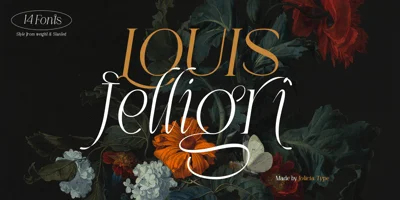
LOUIS felligri Font
LOUIS felligri Font is perfect for royal heritage branding, aristocratic event invitations, luxury palace hotels, prestigious monarchy museums, regal ceremony materials, noble family crests, distinguished award ceremonies, imperial cultural exhibitions, and majestic social media content. This distinguished typeface brings royal elegance and aristocratic sophistication to both digital and print design applications.
LOUIS felligri Font is exciting because it embodies the magnificent grandeur and noble heritage of French royal tradition, making it an exceptional choice for designers who want to convey aristocratic prestige with authentic royal appeal. Its stately letterforms and imperial character provide the perfect combination of royal elegance and functional distinction, ensuring your projects communicate nobility, prestige, and royal excellence that resonates with audiences seeking genuine aristocratic experiences and imperial luxury.
The LOUIS felligri Font family includes royal weight variations and aristocratic elements, featuring light, regular, and bold weights with complementary noble styles, imperial ligatures, and regal decorative flourishes. Each style maintains consistent royal aesthetics while offering flexibility for different aristocratic applications, allowing designers to create majestic visual systems that reflect noble values and royal sophistication.
Whether you're designing for luxury brands, heritage institutions, or aristocratic projects, LOUIS felligri Font delivers authentic royal appeal and imperial sophistication that connects with audiences seeking genuine nobility experiences and aristocratic excellence. This premium typeface offers designers the royal elegance and aristocratic charm needed to create designs that communicate noble heritage, imperial prestige, and royal authenticity effectively. The font's majestic character makes it perfect for royal branding, aristocratic campaigns, and imperial applications where authentic noble credibility is essential. Download LOUIS felligri Font today and royalize your creative projects with genuine aristocratic sophistication and imperial typography excellence that defines noble design standards.